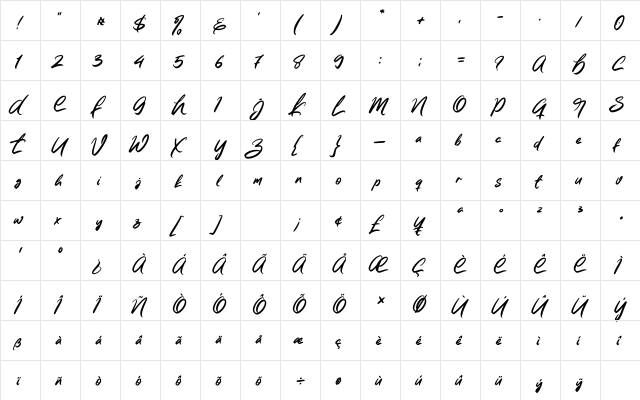
Kylies Regular
| Designer | Colllab Studio Team |
Design Context for Kylies Typeface
Kylies is a composed and adaptable typeface that performs quietly and consistently across a wide range of design contexts.